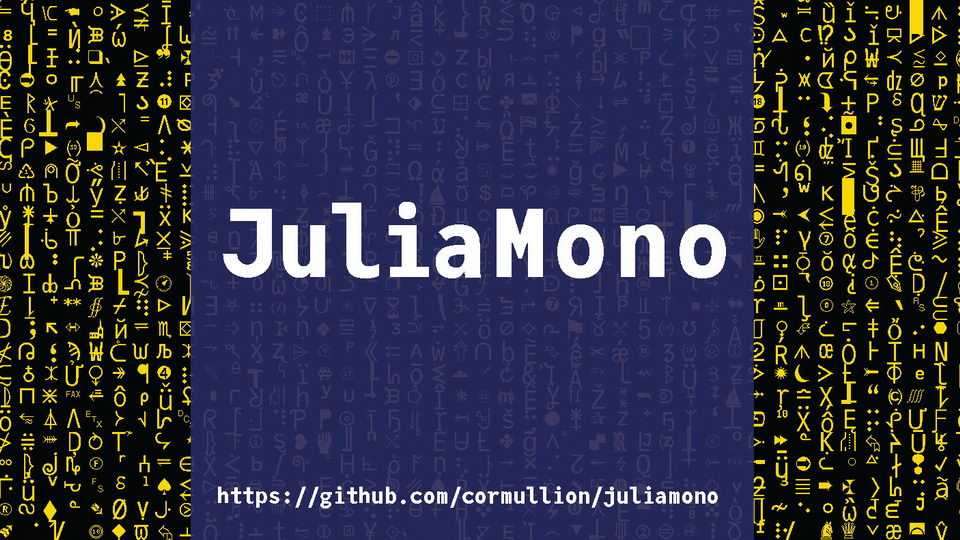
JuliaMono Font Family › Fontesk
Download JuliaMono typeface, a monospaced font family in six weights designed for programming in Julia. JuliaMono is suitable for scientific and technical programming as well as for general purpose hacking, easy to use, simple, friendly, and approachable.